The TWA Flight Center at New York’s JFK is a living monument to the golden age of air travel. Designed by architectural icon Eero Saarinen in the 1960s, its over the top, neo-futurist design celebrated the unlimited possibilities of technology and our future. (Steven Spielberg would go so far as to use the TWA Flight Center as a setting to define the era in Catch Me If You Can.)
The airline TWA itself shut down in the early aughts, and the building was abandoned. JetBlue built out its own terminal encircling the center before the the state of New York announced a plan in 2016 to turn the landmark-status TWA space into a 40,000-square-foot hotel and conference center. That hotel opens next month, and it promises to be a jaw-dropping ode to Saarinen’s original vision. And to complete it, the design firm Pentagram was brought in to rebuild the TWA logo and a typeface lost to time.
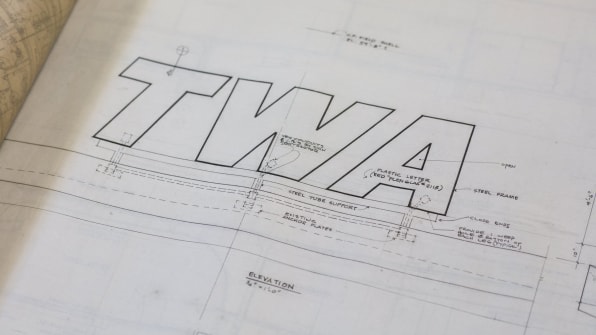
During its heyday, the terminal was teeming with a high energy, hyper-optimistic typeface. Everything from grand Departures and Arrivals billboards, to the “towel” signs in the bathroom, was rendered in an all-caps typeface that made each part of traveling feel epic. Even drying your hands. The typeface was the work of someone (or many someones) in Saarinen’s office.
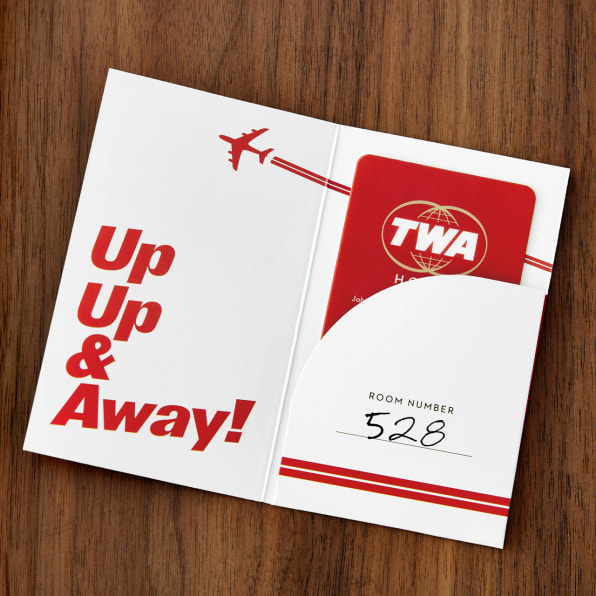
“Eero Saarinen really got branding. He really did. He really got that it would all go together and it required consistency, unification, and organization,” says Michael Bierut, the Pentagram partner who led the new design. Bierut believes that Saarinen designed the entire Flight Center after being inspired by TWA’s logo. Not only did the typeface on the signs look a lot like the letters in TWA; the color scheme was there, too. “He did what I find myself doing a lot. You find something you see as the authentic core where the DNA [of a brand] resides. He said the TWA logo is what people associate with. I believe it was already red,” says Bierut. “If you go to the Flight Center when it opens next month, all the upholstery in the waiting areas is a bright, vivid red that plays against the white tile work and surfaces. I think he was extrapolating the brand color and typeface, and just trying to make this really intense, total brand experience.”
To recreate the typeface, Pentagram teamed up with typeface creator Nick Sherman. They went back to Saarinen’s old source material archived at Yale to build a digital version that could work inside the hotel and on all its marketing materials–not just on signs, but on the web, too.
“The reason it doesn’t look like any digital typeface we have now is [Saarinen’s team] found images in books and blew them up photo-mechanically. Then an architect translated them into the signs you see,” Bierut says. “It was one hand process on top of another hand process rendering the final effect.” To further complicate things, Saarinen’s team was pulling letterforms from all sorts of typeface samples.
“I was already a fan of Eero Saarinen and the TWA Flight Center, so looking through all the old photos, blueprints, and even text documents was fascinating,” says Sherman. “At the same time, looking at some of the material related to the signage could be a bit puzzling. There are many different letter drawings, alphabet sheets, sketches for specific sign layouts, etc, and many of them are very different from each other. To be honest, some of them aren’t particularly well-drawn either, as far as letter drafting goes.”
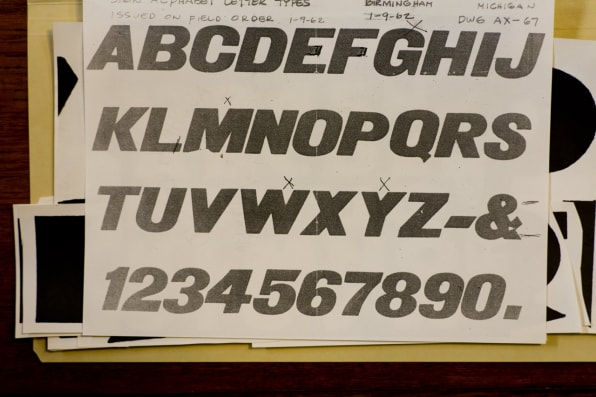
Sherman scanned some of these analog masters, but they didn’t produce what anyone would consider a passable font. Meanwhile, the closest existing digital font, known as Derek (which is a digitization of the analog typeface Old Gothic Bold Italic which looks quite a bit like the TWA logo’s original inspiration), just looked wrong. As Sherman puts it, letterforms like the “a” and “r” had too much flare and curviness, making them look like something out of the late 1800s rather than the 1960s.
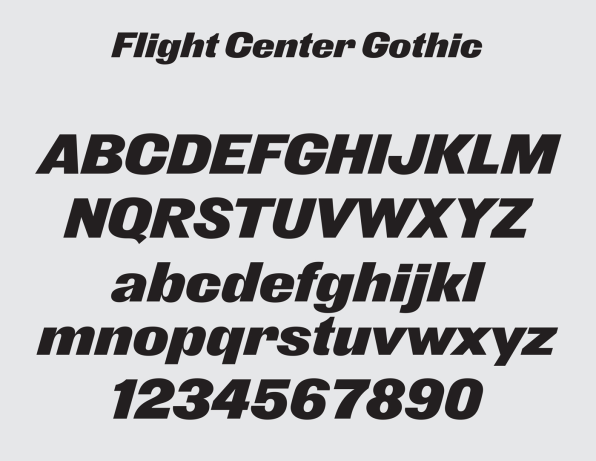
“One very memorable moment from working on this project was unexpectedly seeing the typeface set in gigantic letters on the construction wall around the building, as it was shown in the New York Times,” recounts Sherman. “Of course, after looking closely, I realized the sign was using one of the earlier beta versions of the font that had since been improved. But it was still extremely satisfying.”